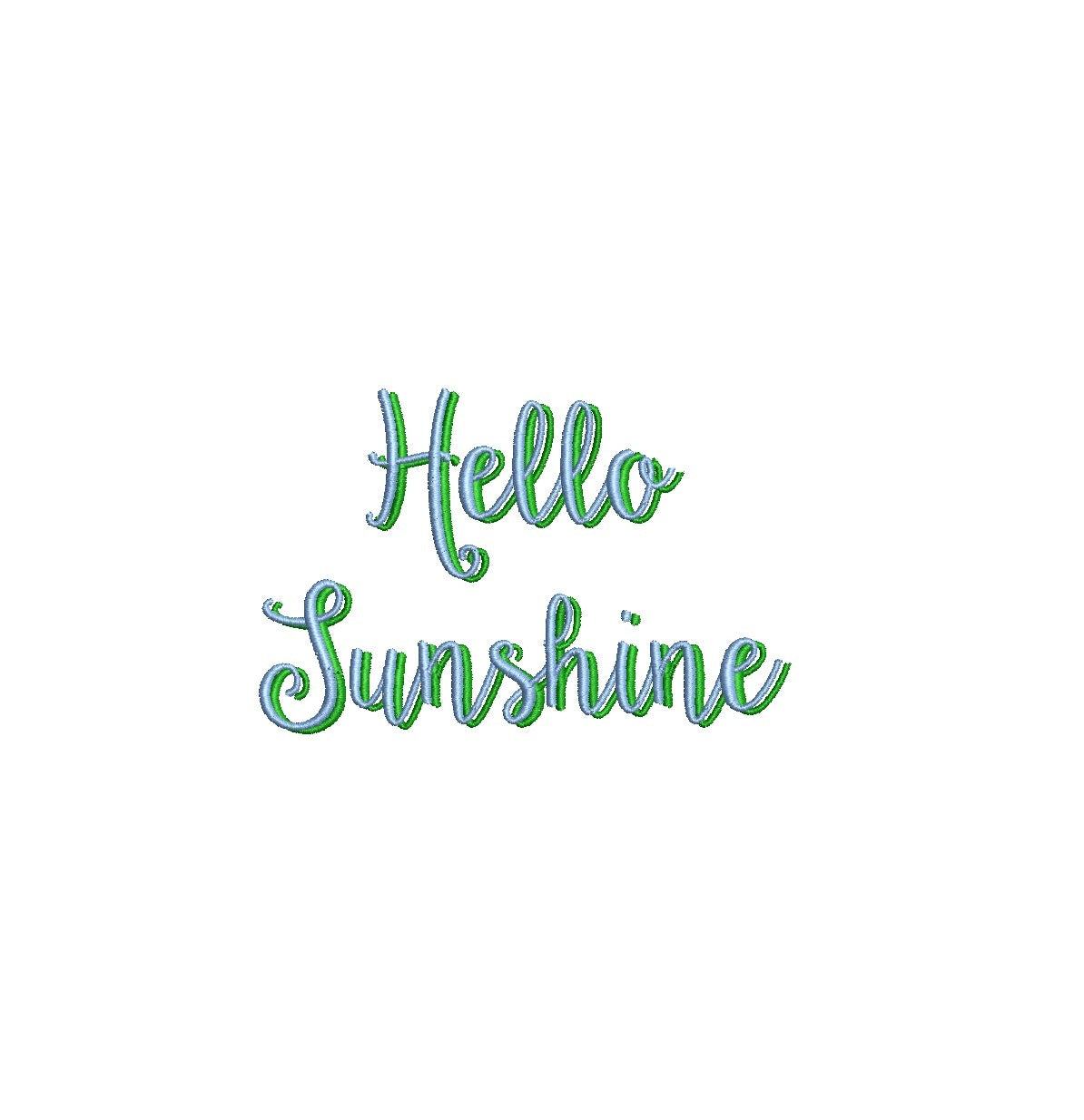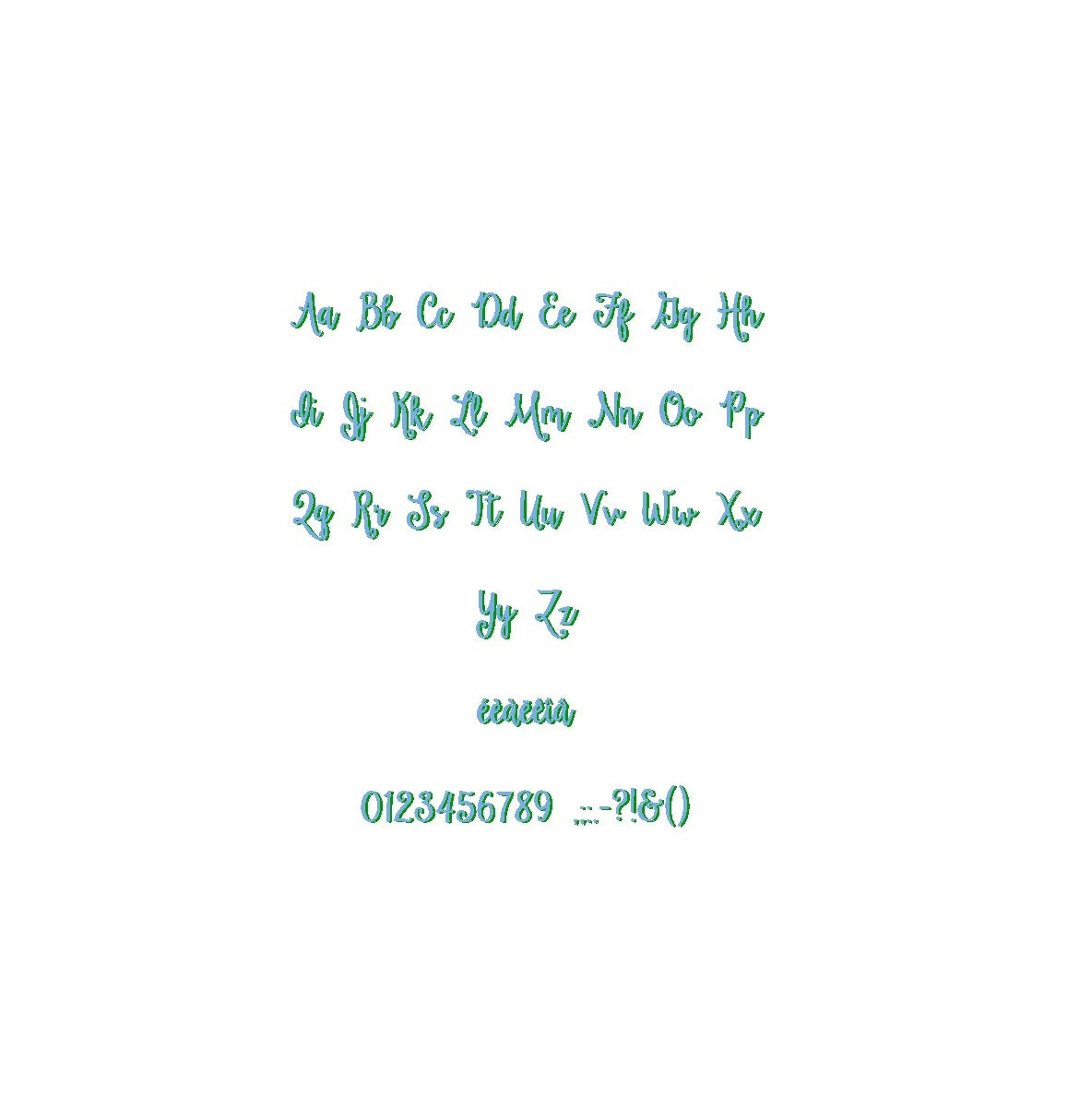
Elevate your designs with the cheerful Hello Sunshine Shadow ESA font. Compatible with Wilcom Studio e4.5.6 and Hatch 3 versions and up, this font infuses your projects with a vibrant touch of positivity and playfulness. The font's captivating shadows and lively lines create a dynamic visual impact that sets your designs apart. Streamline your creative process and achieve flawless results by utilizing this font with industry-leading software. Upgrade your projects with the compatibility of Hello Sunshine Shadow ESA font and craft visuals that radiate happiness. Embrace creativity and joyful charm for your design journey today!